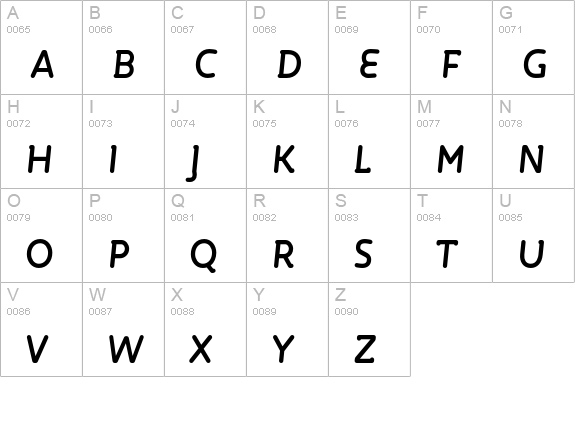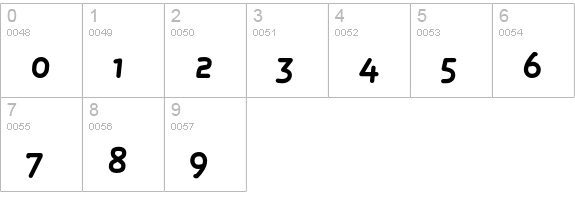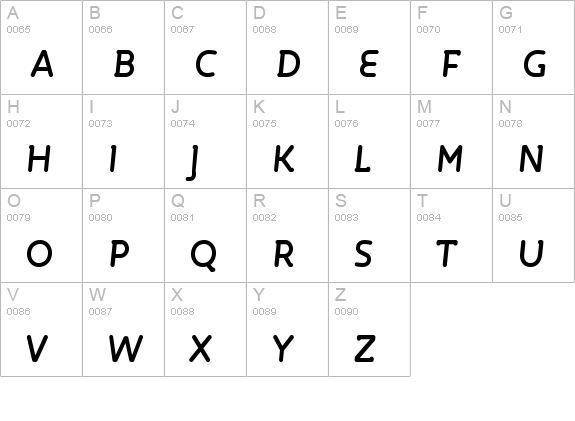
Roice-BoldItalic is a striking and dynamic font that embodies a perfect balance of boldness and elegance. Its stylish italicized design exudes confidence and sophistication, making it ideal for projects that require a touch of modern flair. The sleek curves and sharp lines of Roice-BoldItalic add a unique visual interest to any text, ensuring that your message stands out with a touch of class. Best of all, Roice-BoldItalic is available for free download at FontsMarket.com, allowing you to easily access this exceptional font for your creative endeavors. Whether you're designing a logo, crafting invitations, or sprucing up your website, Roice-BoldItalic is a versatile choice that will elevate your projects to new heights. Download Roice-BoldItalic today and let your creativity shine with this exceptional typeface.